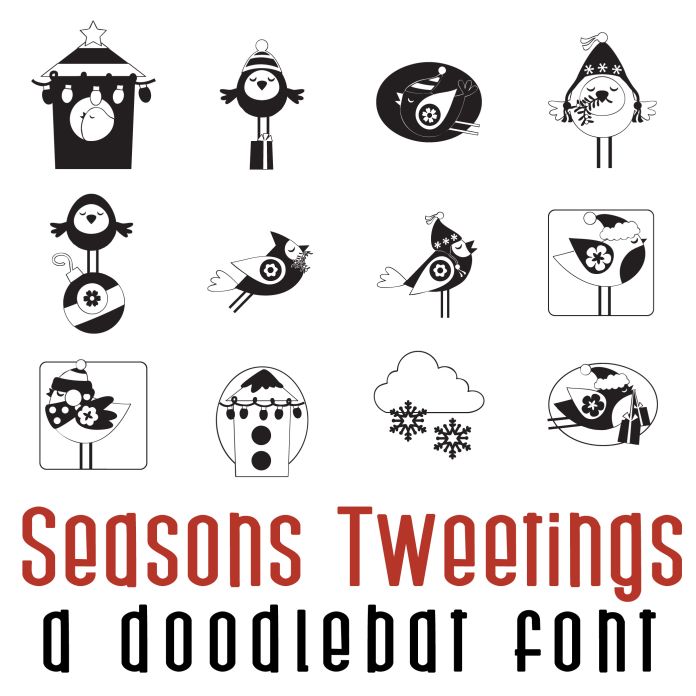
This fun doodlebat font features 26 adorable holiday birds. Perfect for Christmas, cards, crafts, gifts, decor, scrapbook pages, planner stickers, and more!